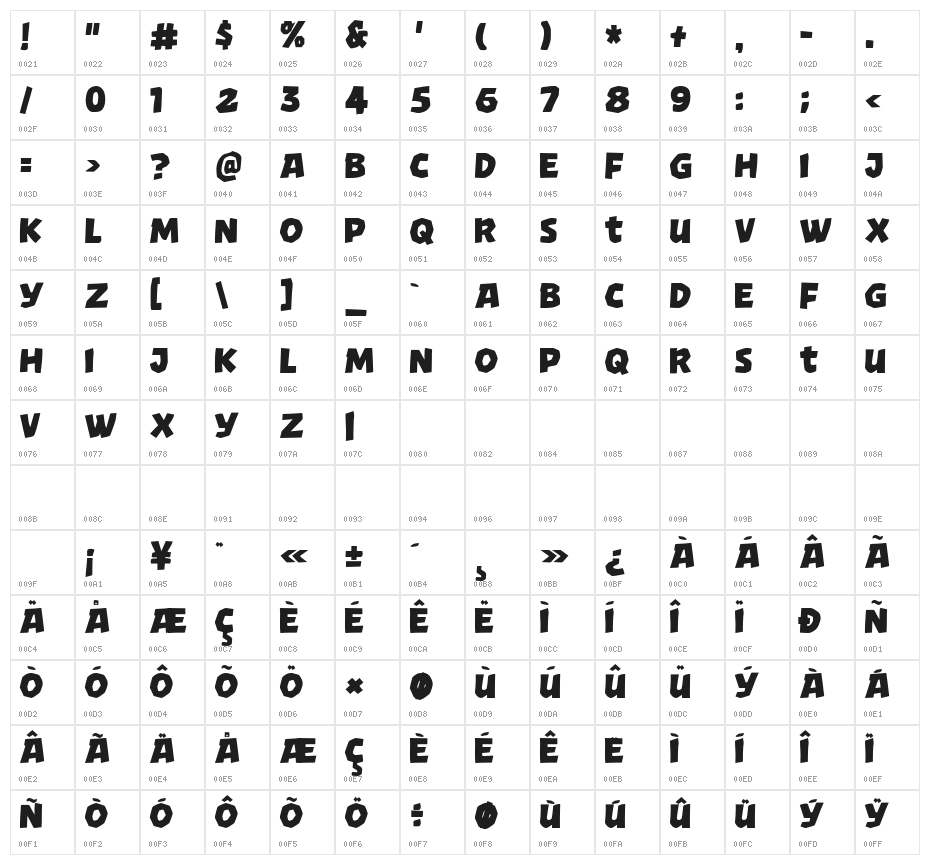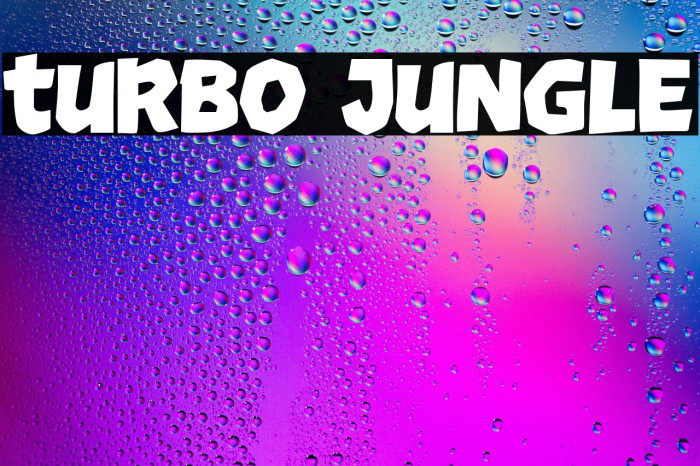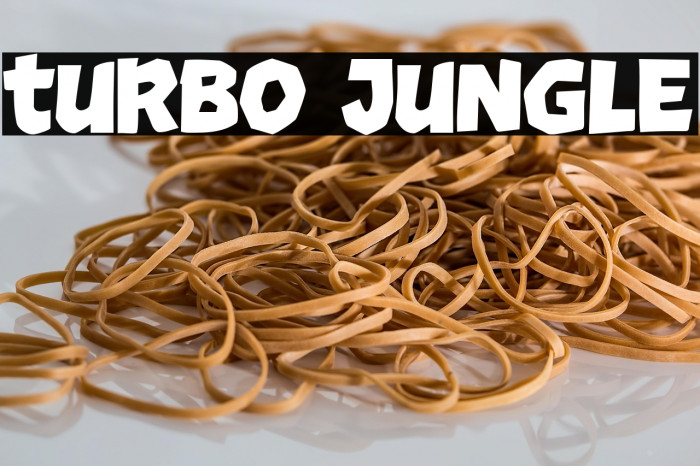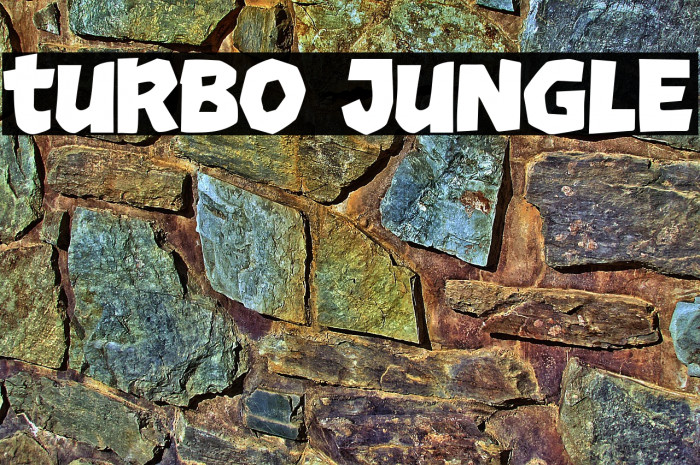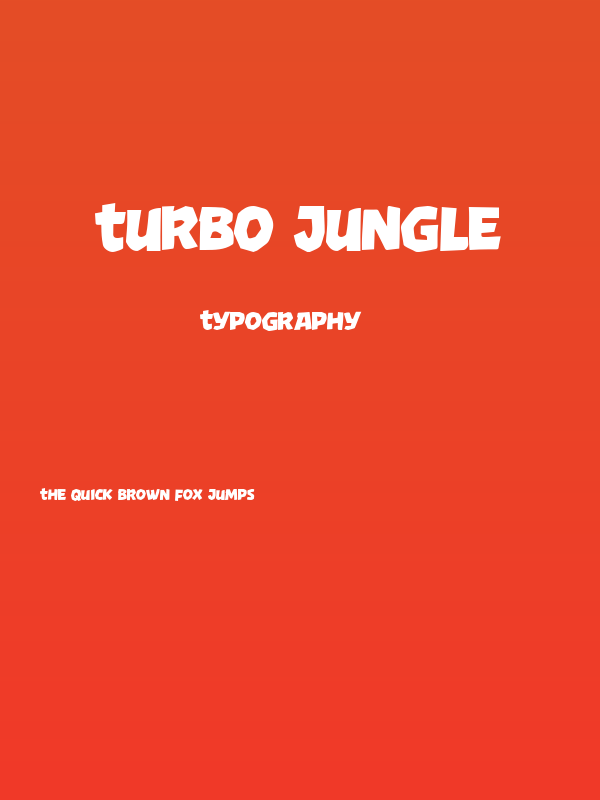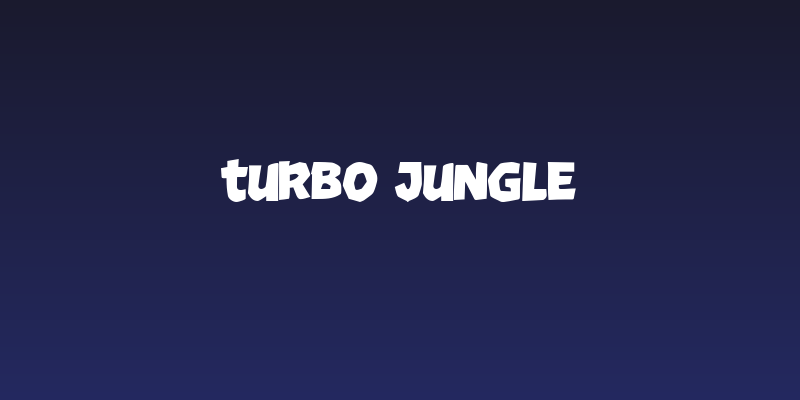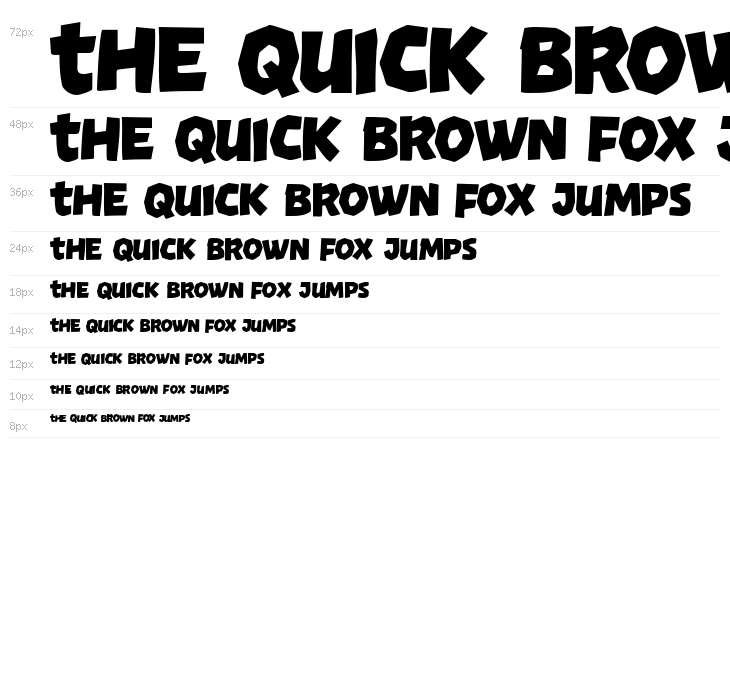
Turbo Jungle Font
Turbo Jungle Description
A bold, playful font with irregular, chunky letterforms that convey a sense of energy and movement.
| Overall Style | Playful, Energetic |
| Proposed Projects | Posters, children's books, playful branding. |